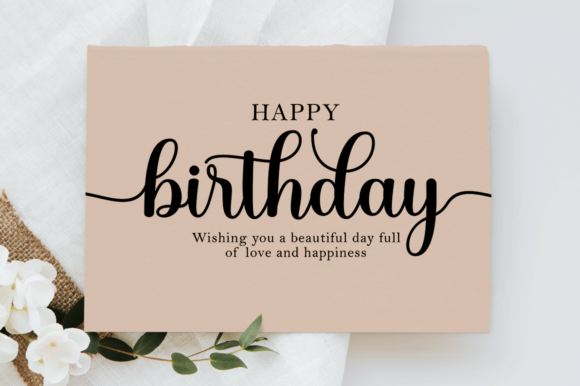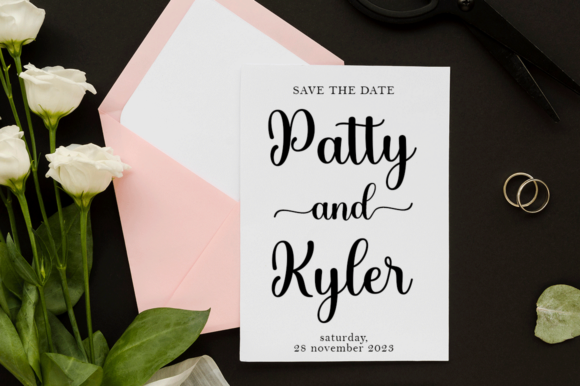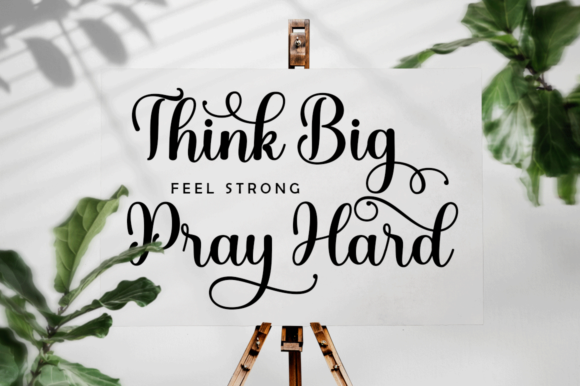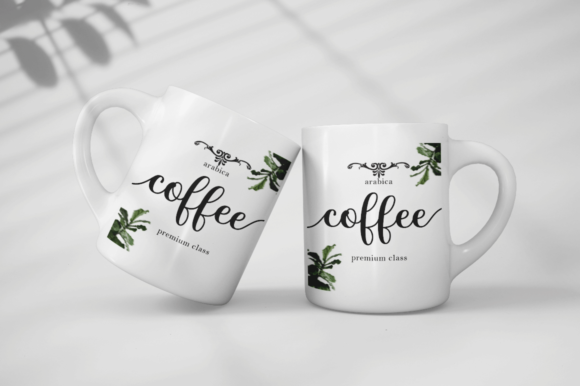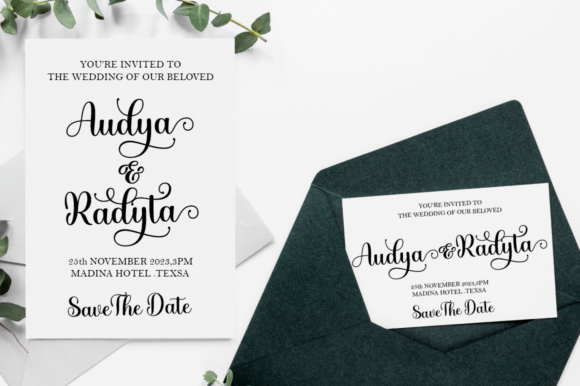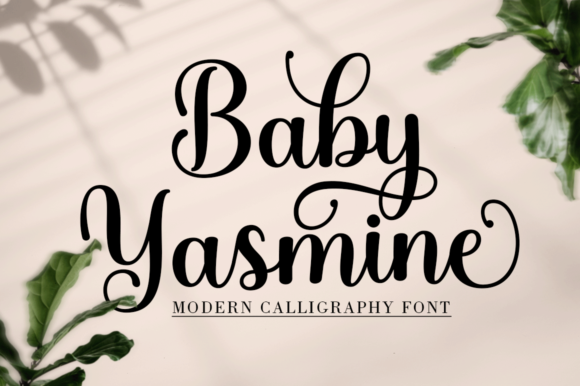
Baby Yasmine Font: Elevate Your Designs with Elegant Script
In the world of typography, few fonts capture the essence of elegance and sophistication as beautifully as the Baby Yasmine Script. This stunning script font, inspired by timeless classic calligraphy, brings a contemporary atmosphere and impeccable form to your designs. Whether you’re a designer, crafter, or DIY enthusiast, Baby Yasmine Script is an excellent addition to your font collection.
The Inspiration Behind Baby Yasmine Script
Baby Yasmine Script draws inspiration from the classic calligraphy of the past, reimagined with a modern twist. The result is a font that exudes elegance, poise, and refinement. The creator of this beautiful script font has carefully crafted each letter to ensure that it not only looks stunning on its own but also flows seamlessly with other letters, creating a harmonious and visually appealing text.
Key Features of Baby Yasmine Script
- Elegant Script Style: Baby Yasmine Script boasts a beautiful, flowing script style that adds a touch of sophistication to any design.
- Contemporary Atmosphere: Despite being inspired by classic calligraphy, this font has a distinctly modern feel, making it perfect for a wide range of design applications.
- Impeccable Form: Each letter in the Baby Yasmine Script font has been meticulously crafted to ensure that it is not only aesthetically pleasing but also perfectly proportioned.
- PUA Encoded: This font is PUA (Private Use Area) encoded, which means that you can easily access all the glyphs and swashes, giving you greater creative control over your designs.
PUA encoding refers to a specific area in the Unicode standard that allows font creators to include additional characters, such as glyphs and swashes, that are not part of the standard Unicode character set. In the case of Baby Yasmine Script, PUA encoding means that you can access a wide range of alternative characters and decorative elements, making it easier to add personality and flair to your designs.
Use Cases for Baby Yasmine Script
Baby Yasmine Script is an incredibly versatile font that can be used in a variety of design applications, including:
- Branding and Logo Design: The elegant, sophisticated style of Baby Yasmine Script makes it perfect for creating high-end logos and brand identities.
- Wedding and Event Stationery: This font is ideal for designing beautiful wedding invitations, save-the-date cards, and other event stationery.
- Packaging Design: Add a touch of luxury to your product packaging with Baby Yasmine Script.
- Digital Media: Use Baby Yasmine Script to create stunning social media graphics, blog headers, and other digital content.
Why Choose Baby Yasmine Script?
- Unique and Versatile: Baby Yasmine Script offers a unique blend of elegance and modernity, making it suitable for a wide range of design projects.
- High-Quality Design: Each letter in the font has been carefully crafted to ensure that it looks beautiful and professional.
- Easy to Use: With PUA encoding, accessing the various glyphs and swashes is simple, making it easy to get the most out of the font.
Baby Yasmine Script is a truly exceptional font that brings a touch of elegance and sophistication to any design. Its unique blend of classic inspiration and modern style, combined with its PUA encoding and high-quality design, make it an excellent choice for designers and crafters looking to elevate their work. Whether you’re creating branding materials, event stationery, packaging, or digital content, Baby Yasmine Script is sure to impress.